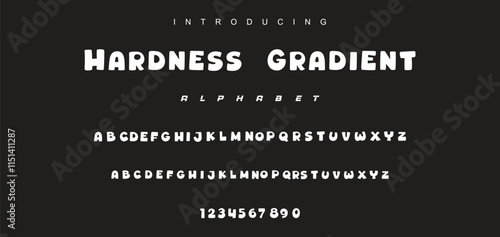
Playful cartoon Font, funky typeface for joyful brings life designs like children's artwork, birthday invitations, playful branding, and carnival typography. Vector typeset